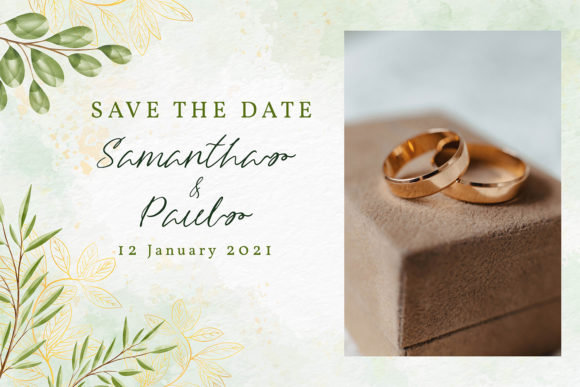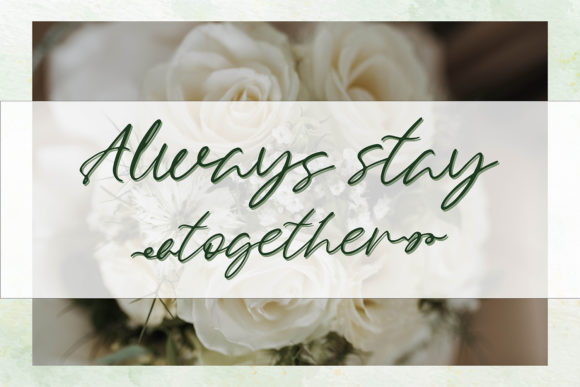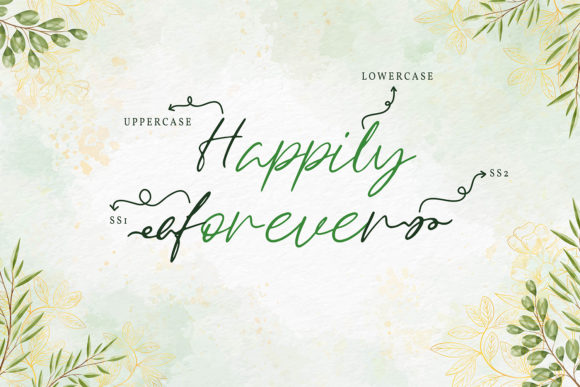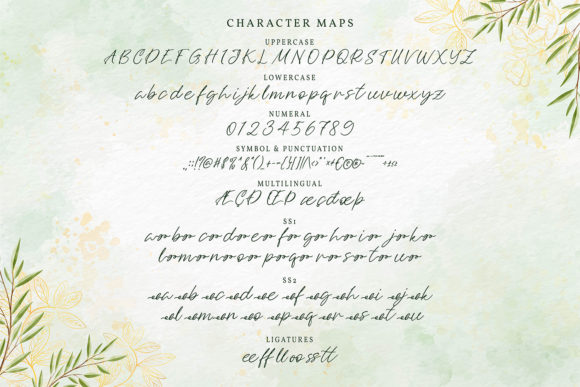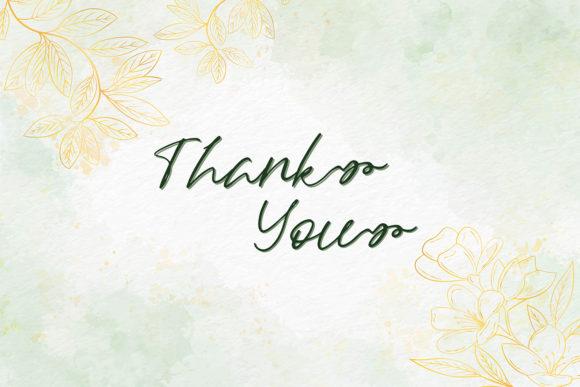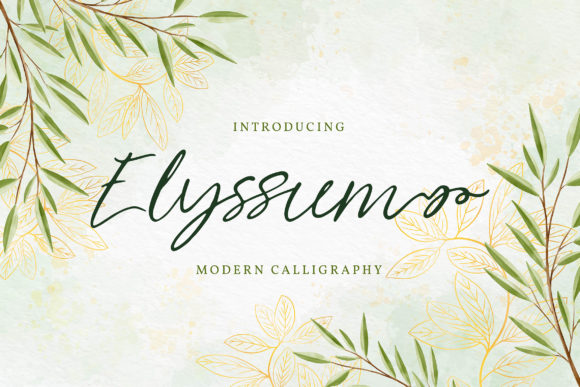
Elyssum Font: Elevate Your Designs with Elegance and Sophistication
In the world of typography, fonts play a crucial role in conveying the tone and aesthetic of a design. For designers and crafters seeking to add a touch of elegance and sophistication to their projects, the Elyssum font is an excellent choice. This stylish and delicate font has gained popularity for its clean, thin, and smooth vibe, making it a versatile addition to any design.
What Makes Elyssum Font Stand Out?
The Elyssum font boasts several features that set it apart from other fonts. Its clean and thin lines give it a modern and fresh look, perfect for designs that require a subtle yet sophisticated touch. The font’s smooth vibe ensures that it remains legible even at smaller sizes, making it ideal for use in a variety of applications, from digital designs to print materials.
PUA Encoding: Unlocking Creative Possibilities
One of the key advantages of the Elyssum font is its PUA (Private Use Area) encoding. This means that the font includes a range of glyphs and swashes that can be accessed easily, allowing designers to experiment with different styles and effects. With PUA encoding, you can unlock the full creative potential of the Elyssum font and add unique touches to your designs.
The versatility of the Elyssum font makes it suitable for a wide range of design applications. Whether you’re working on:
- Digital designs, such as website headers, social media graphics, and email newsletters
- Print materials, like brochures, flyers, and business cards
- Crafting projects, including card making, scrapbooking, and DIY signage
- Branding and packaging designs
the Elyssum font is sure to make a lasting impression. Its elegant and refined appearance ensures that your designs exude professionalism and style.
Tips for Using Elyssum Font Effectively
To get the most out of the Elyssum font, consider the following tips:
- Pair with contrasting fonts: Combine Elyssum with bold or script fonts to create visual interest and hierarchy in your designs.
- Experiment with sizes and colors: Play with different font sizes and colors to add depth and dimension to your designs.
- Take advantage of glyphs and swashes: Use the PUA-encoded glyphs and swashes to add unique flourishes and touches to your text.
- Keep it simple: Don’t be afraid to use Elyssum as a standalone font – its clean lines and elegant appearance make it perfect for simple yet effective designs.
The Elyssum font is a stylish and versatile addition to any designer’s toolkit. Its clean, thin, and smooth vibe, combined with PUA encoding, makes it an excellent choice for a wide range of design applications. Whether you’re a seasoned designer or a crafter looking to elevate your projects, the Elyssum font is sure to become a favorite. So why not give it a try and see how it can elevate your designs to new heights of elegance and sophistication?
- Clean, thin, and smooth font style
- Suitable for digital and print designs
- Perfect for crafting projects, branding, and packaging designs